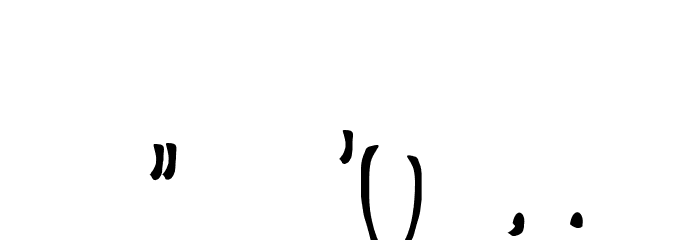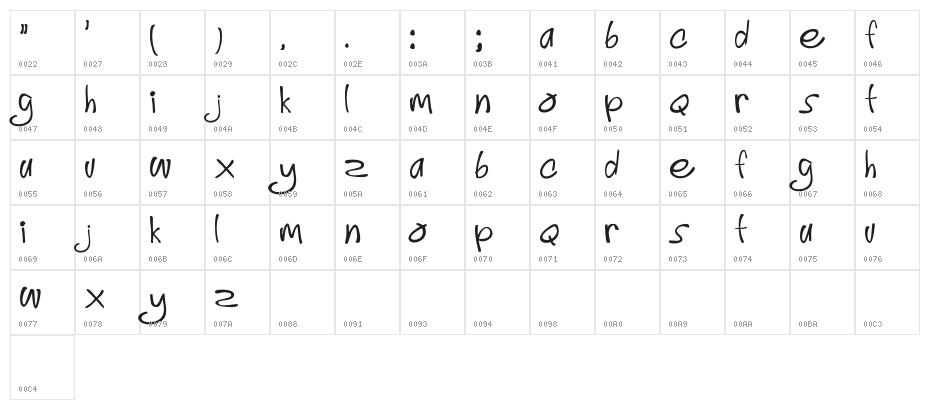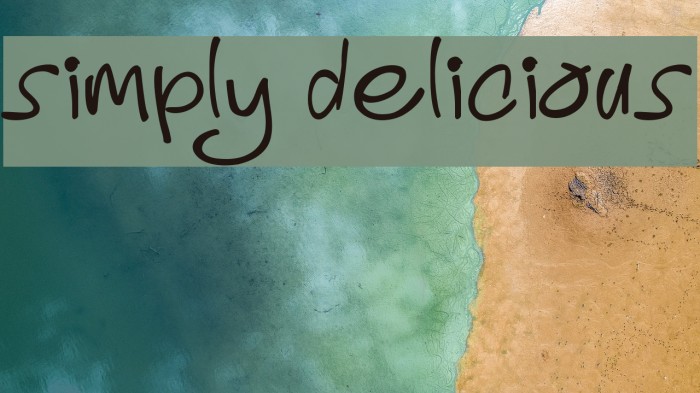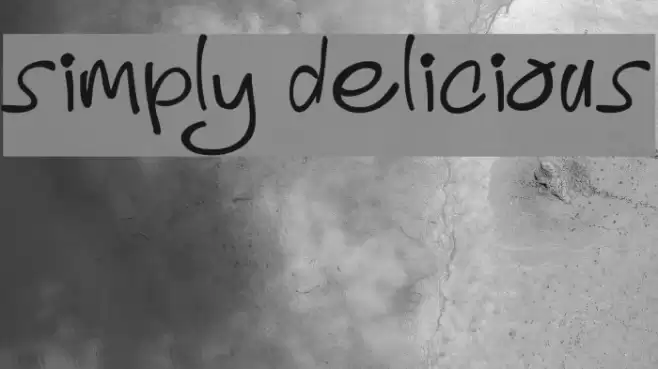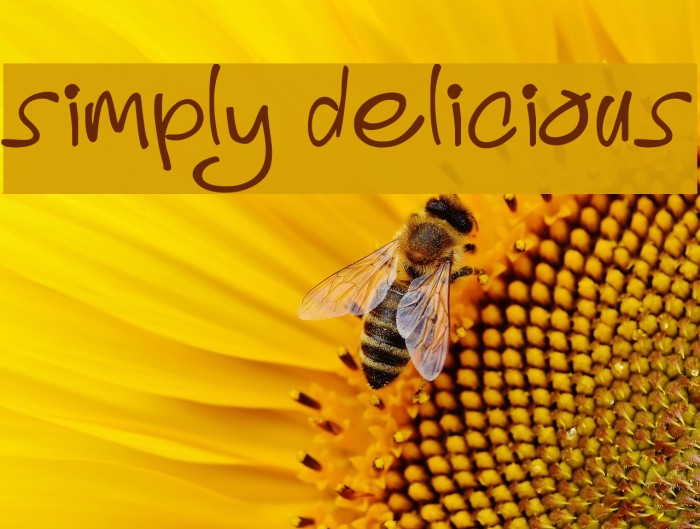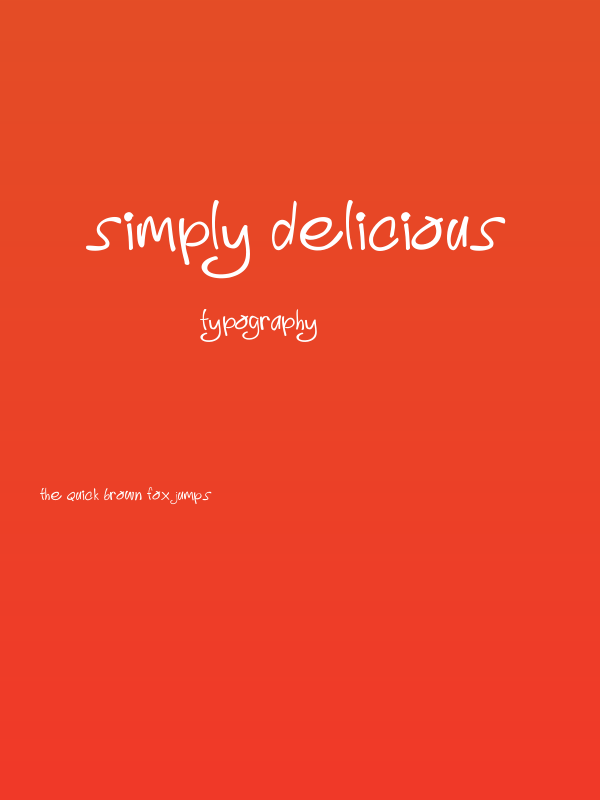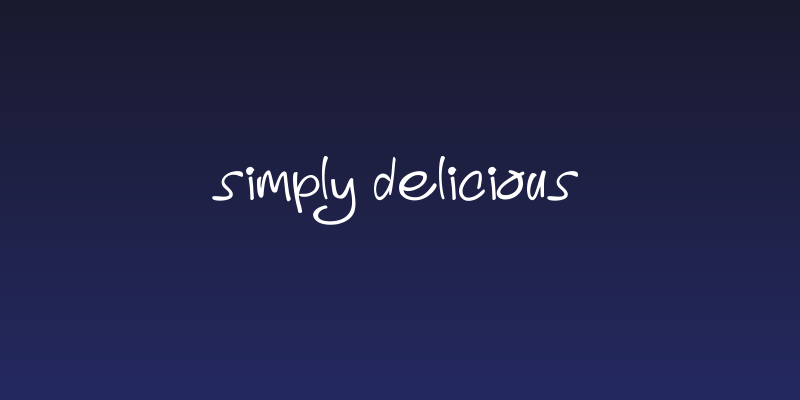
Simply Delicious Font
Simply Delicious Description
This playful and whimsical font features a handwritten style with smooth, flowing curves and a casual, friendly appearance. The letters are slightly slanted, giving a dynamic and lively feel. The strokes are consistent in width, providing a uniform look across all characters. The font includes both uppercase and lowercase letters, as well as a variety of punctuation marks. Its informal style makes it suitable for creative projects that require a personal touch.
| Proposed Projects | Ideal for greeting cards, invitations, children's books, and creative branding. |